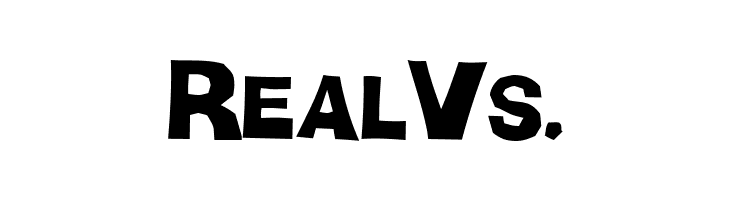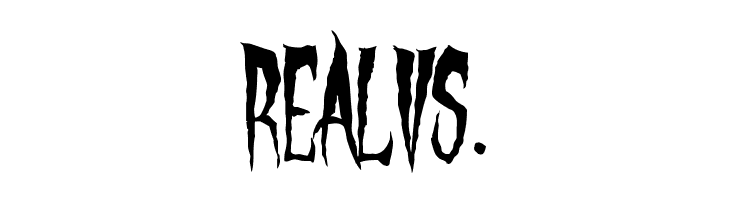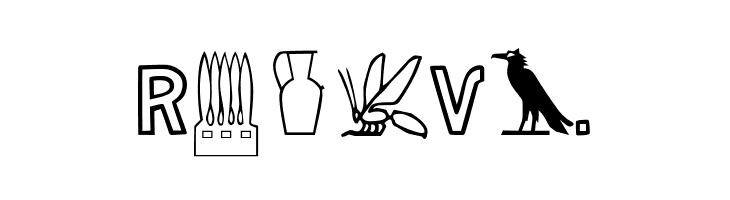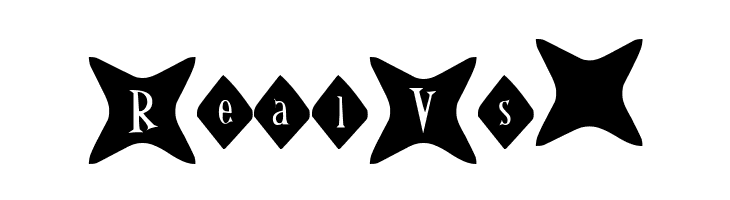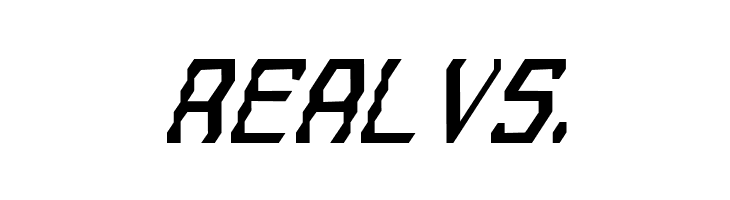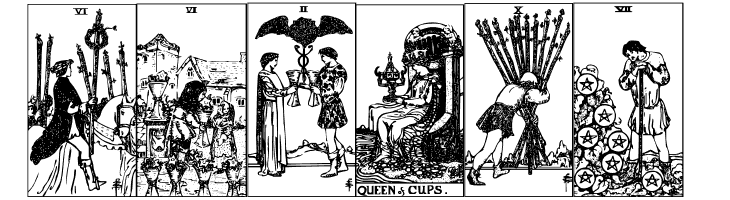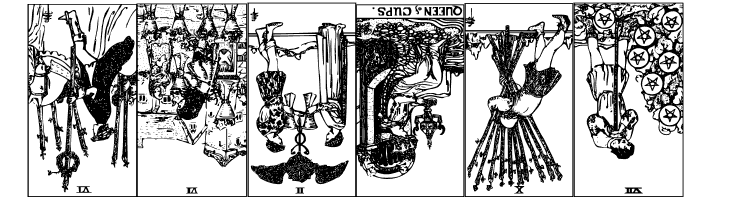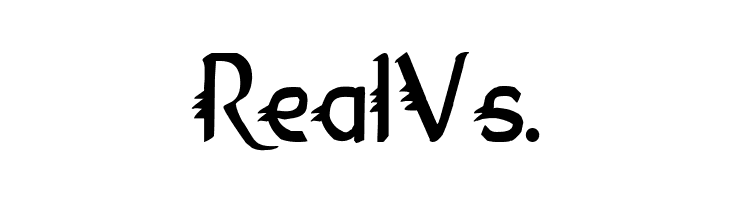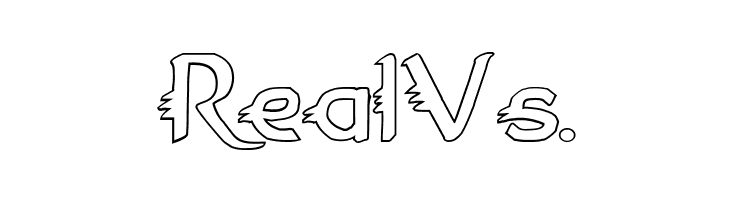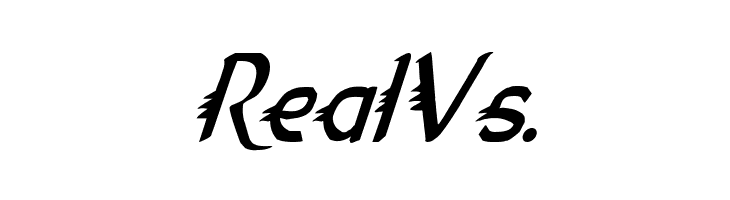
A bold, chrome-like italic font with a futuristic, layered design.
A bold, futuristic font with a chrome-like, layered design.
A bold, geometric, and condensed font with a futuristic style.
A bold, condensed, and italicized font with a futuristic and dynamic design.
A bold, futuristic font with geometric shapes and sharp angles.
A bold, expanded italic font with a futuristic and dynamic style.
A modern, italicized font with a striped gradient effect, exuding energy and motion.
A bold, futuristic font with a gradient effect and tight character spacing.
A bold, italic, futuristic font with angular shapes and horizontal line accents.
A bold, futuristic font with a unique half-tone effect and geometric design.
A futuristic, angular, and italicized font with a bold, geometric design.
A bold, geometric font with a futuristic and modern design.
A bold, angular font with a futuristic and edgy design.
A bold, geometric outline font with an italic slant and a futuristic style.
A bold, geometric outline font with a futuristic and angular design.
A bold, italic, futuristic font with outlined geometric characters.
A bold, geometric font with a futuristic, three-dimensional outline.
A bold, geometric font with a futuristic, tech-inspired design.
A bold, jagged, and decorative font with a gothic, hand-drawn style.
A dramatic, jagged font with a spooky, gothic style.
An edgy, bold font with sharp, jagged edges for dramatic impact.
A bold, condensed font with sharp, jagged edges and a rebellious style.
A dynamic, edgy, and condensed italic font with sharp, jagged edges.
A bold, italic font with sharp, angular strokes and a dynamic appearance.
A bold, decorative outline font with jagged, lightning-like cuts through each character.
A dynamic, italic outline font with jagged, lightning bolt-like edges.
Bold, vintage serif font with high contrast and tight spacing.
Ornate, vintage serif font with bold, high-contrast strokes and decorative details.
Ornate, vintage serif font with hand-drawn, decorative details.
A bold, outlined font with geometric shapes and hieroglyphic elements.